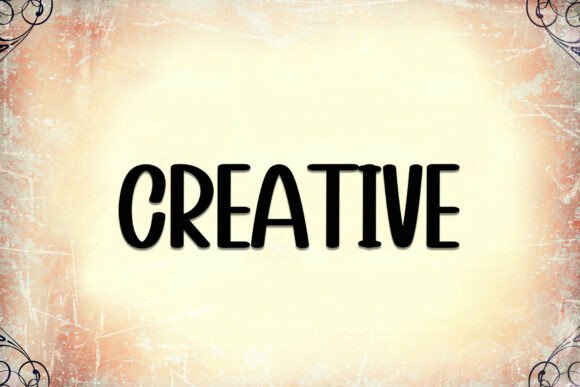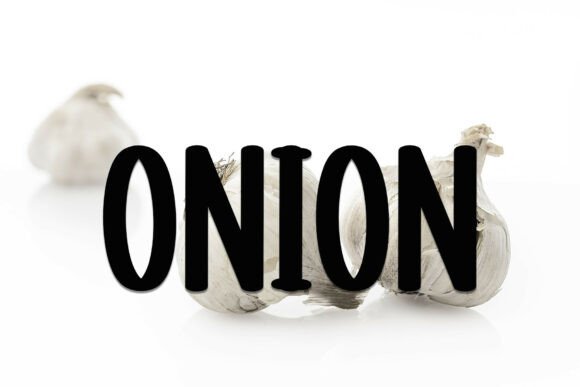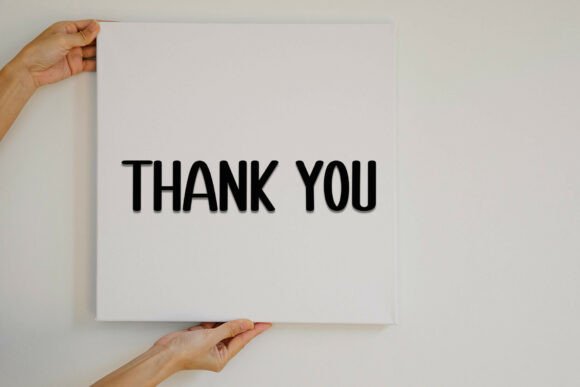
Introduction to Simplehouse Font Font
Fonts play a crucial role in design, and the Simplehouse Font font is a typeface that brings both character and versatility to any project. Whether you’re working on a branding project, a website, or a print design, the Simplehouse Font font offers a unique style that can elevate your work.
Simple House โ Cozy Handwritten Display Font Simple House is a warm and friendly handwritten font that brings a casual charm to your designs.
With its rounded edges and clean, approachable style, it captures the feeling of comfort and simplicityโperfect for projects that need a touch of handcrafted personality Ideal for home decor quotes, product packaging, blog titles, greeting cards, DIY crafts, and rustic branding, Simple House delivers clarity with a cozy, down-to-earth appeal.
Key Features of Simplehouse Font Font
- โ High-quality typeface designed for professional use
- โ Includes a wide range of glyphs and characters
- โ Ideal for logos, branding, websites, and print
Why Choose Simplehouse Font Font?
The Simplehouse Font font is more than just a typeface โ it’s a design tool that helps you communicate your message with style and clarity. Its unique character set and versatile design make it suitable for a wide range of applications, from elegant invitations to bold headlines.
With its carefully crafted letterforms and balanced proportions, the Simplehouse Font font ensures readability and visual appeal across all mediums.
What makes Simplehouse Font font special?
The Simplehouse Font font stands out with its unique design, exceptional readability, and versatility across various design applications.